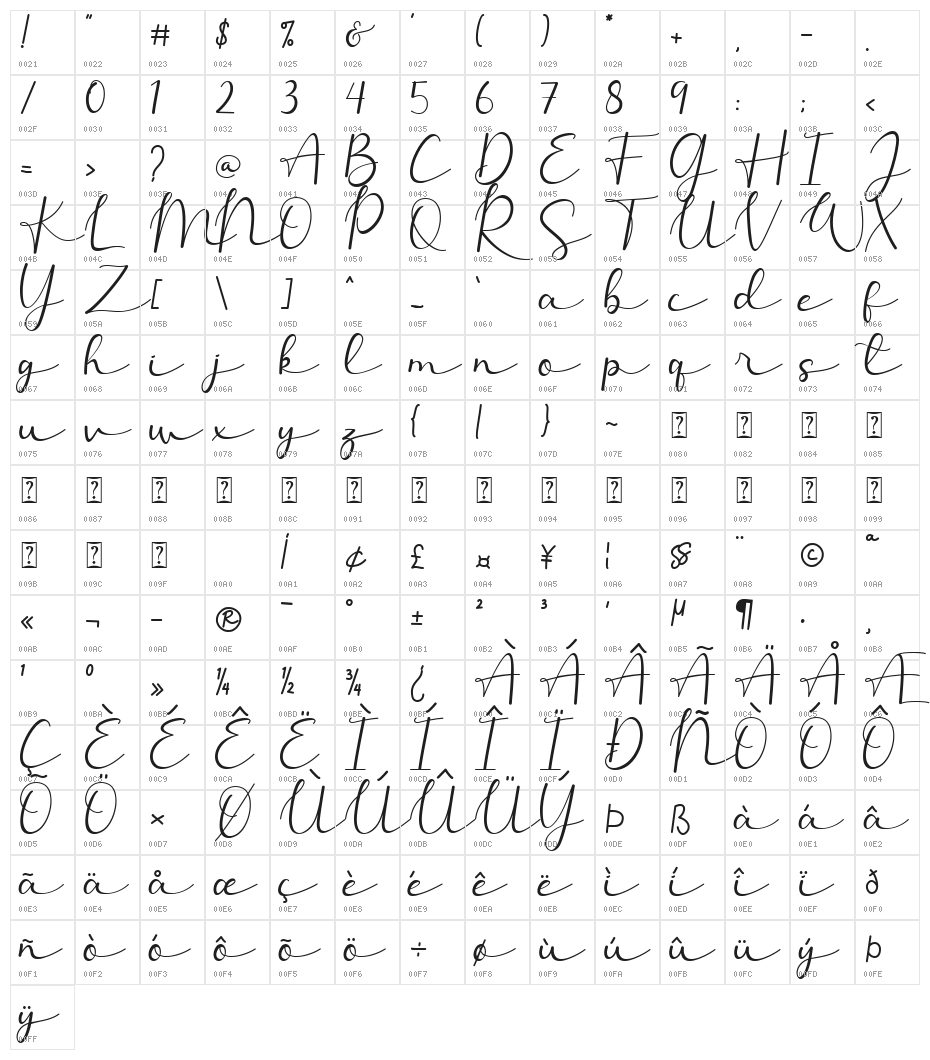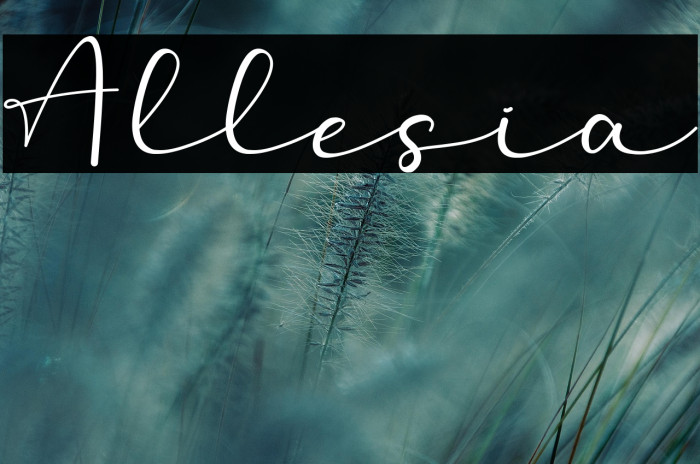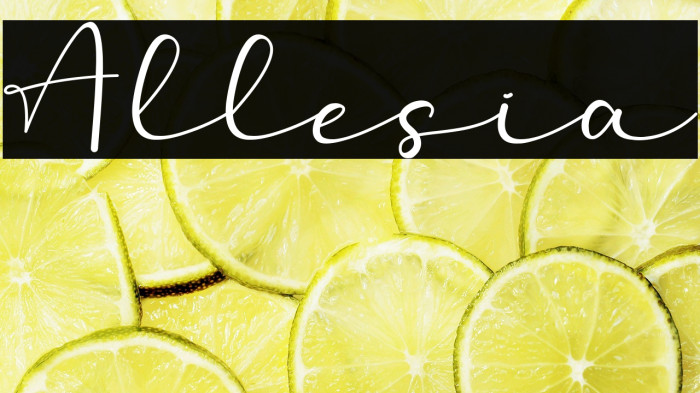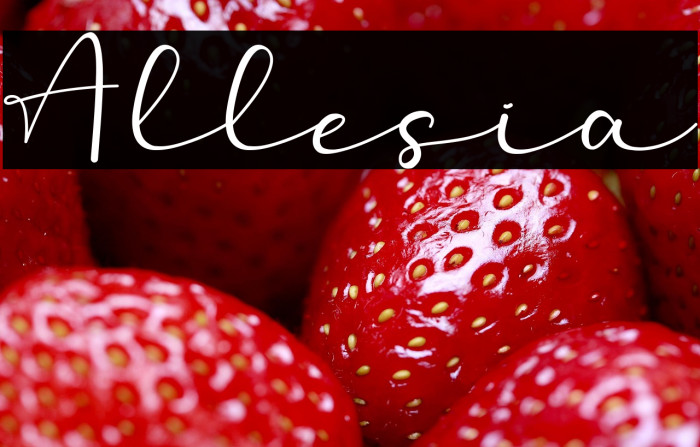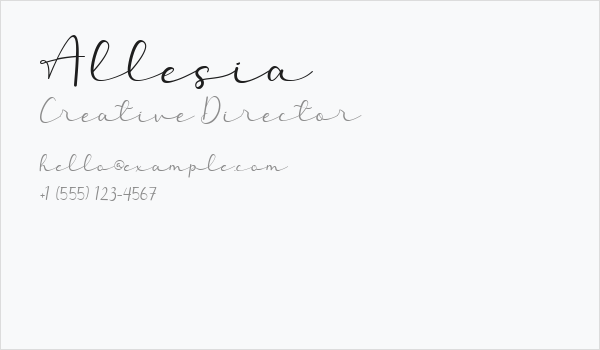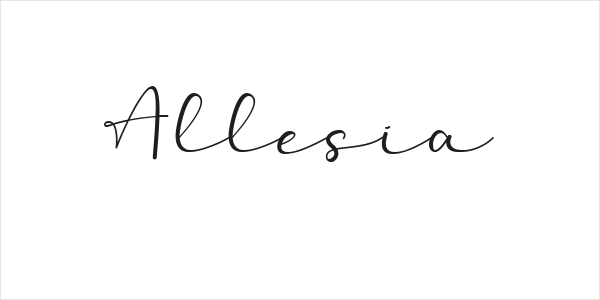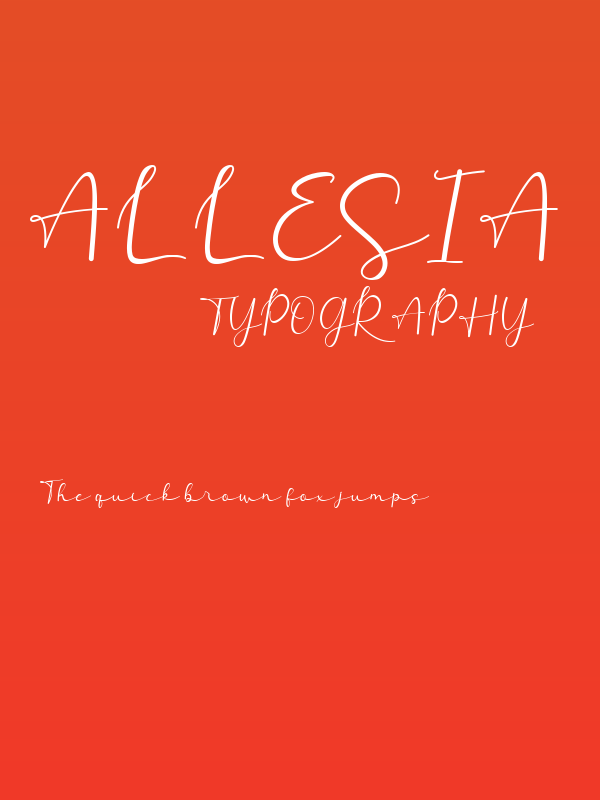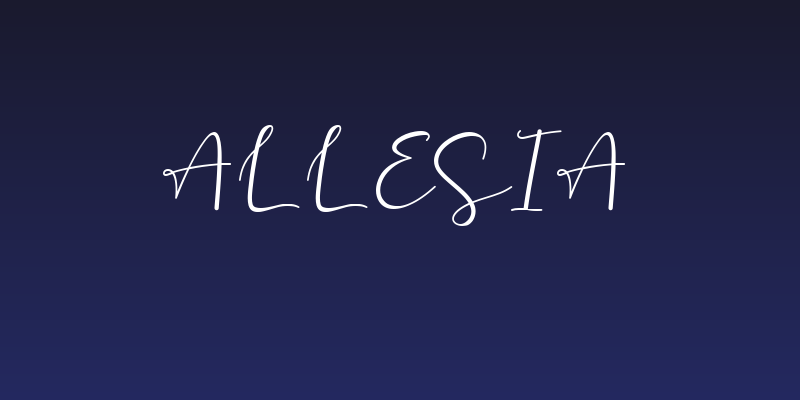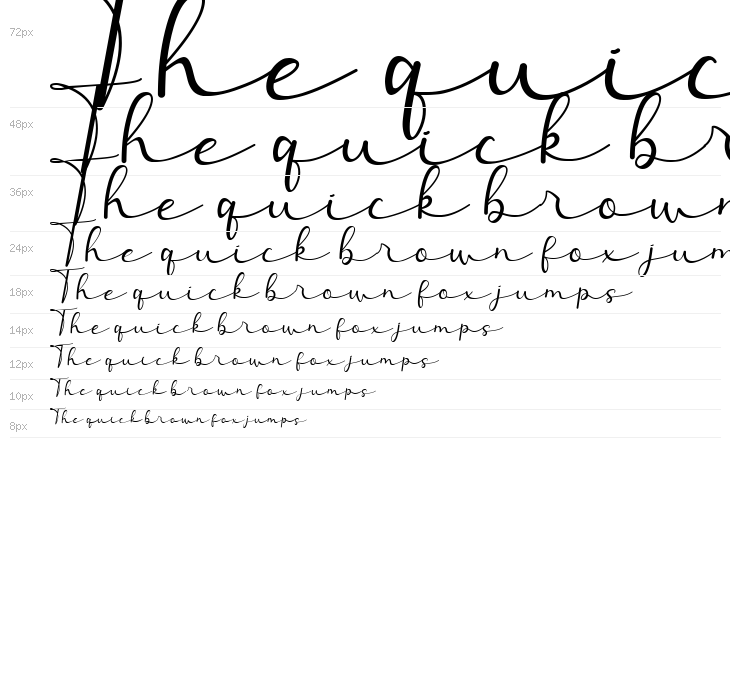
Allesia Font
Allesia Description
This font features a flowing, cursive style that exudes elegance and sophistication. The uppercase letters are tall and slender, with graceful loops and curves that give them a sense of movement. The lowercase letters maintain a consistent fluidity, with smooth connections between each character. The numerals are stylishly crafted, matching the overall aesthetic with their elongated forms and subtle flourishes. Special characters are thoughtfully designed to complement the alphabet, maintaining the font's cohesive look. This font is perfect for projects that require a touch of elegance and personality, such as invitations, branding, and decorative text.
| Proposed Projects | Ideal for wedding invitations, branding, greeting cards, and decorative projects. |